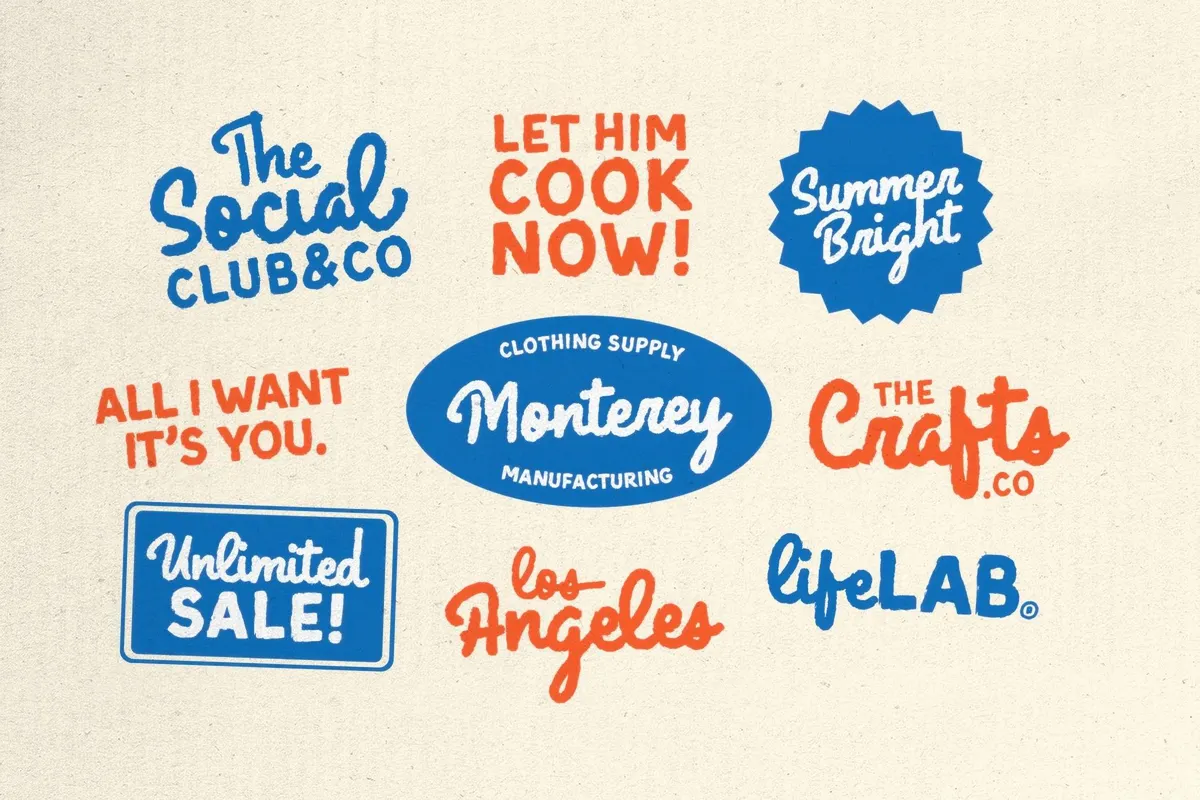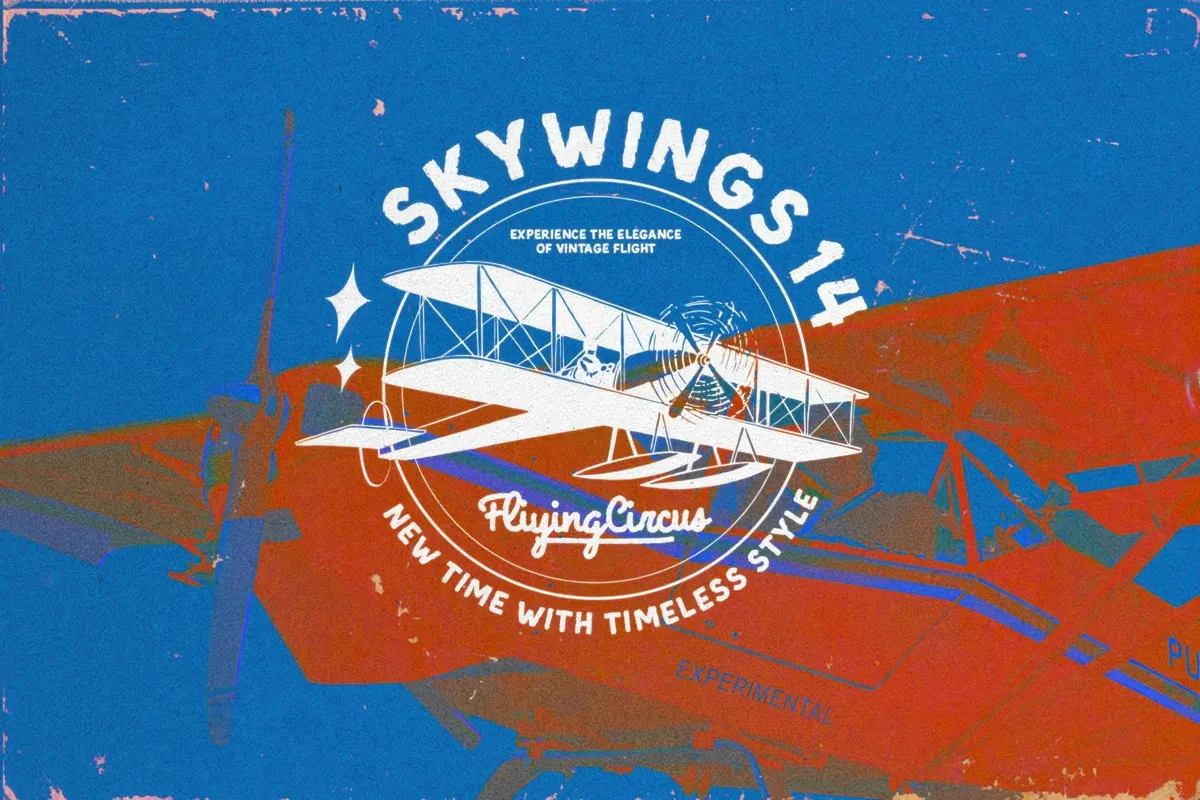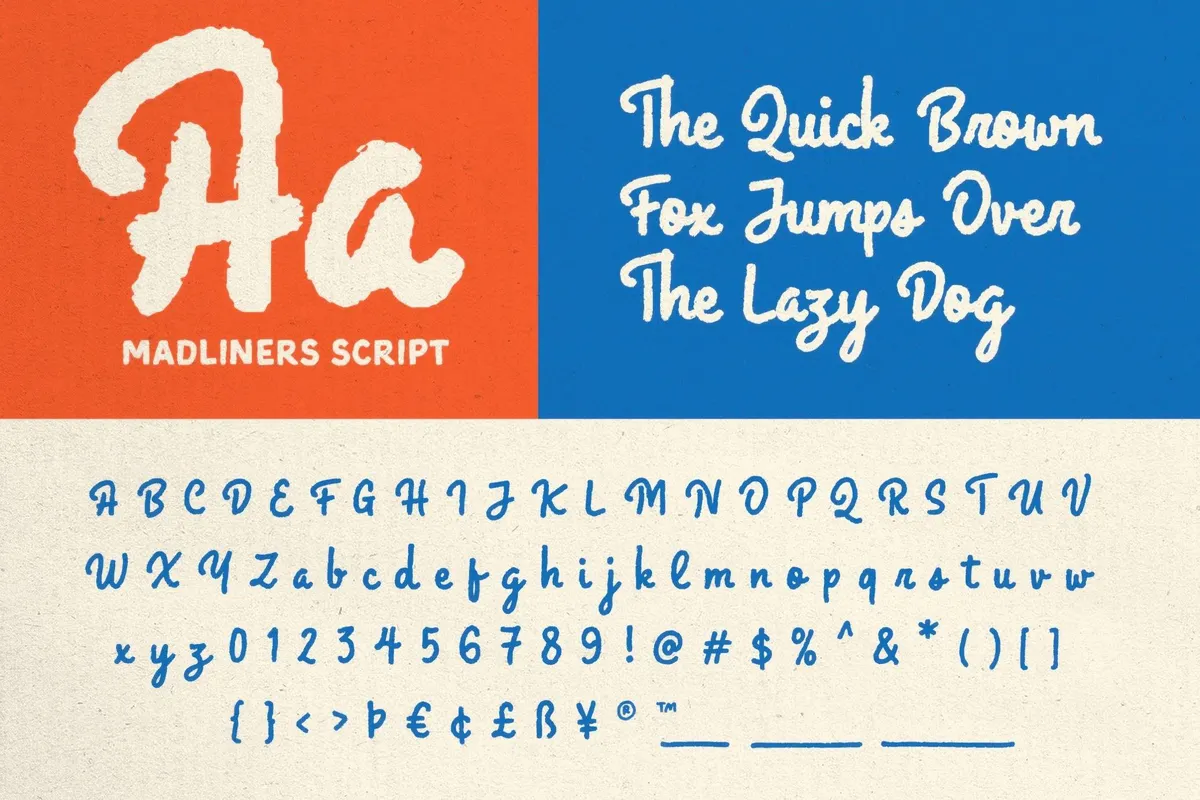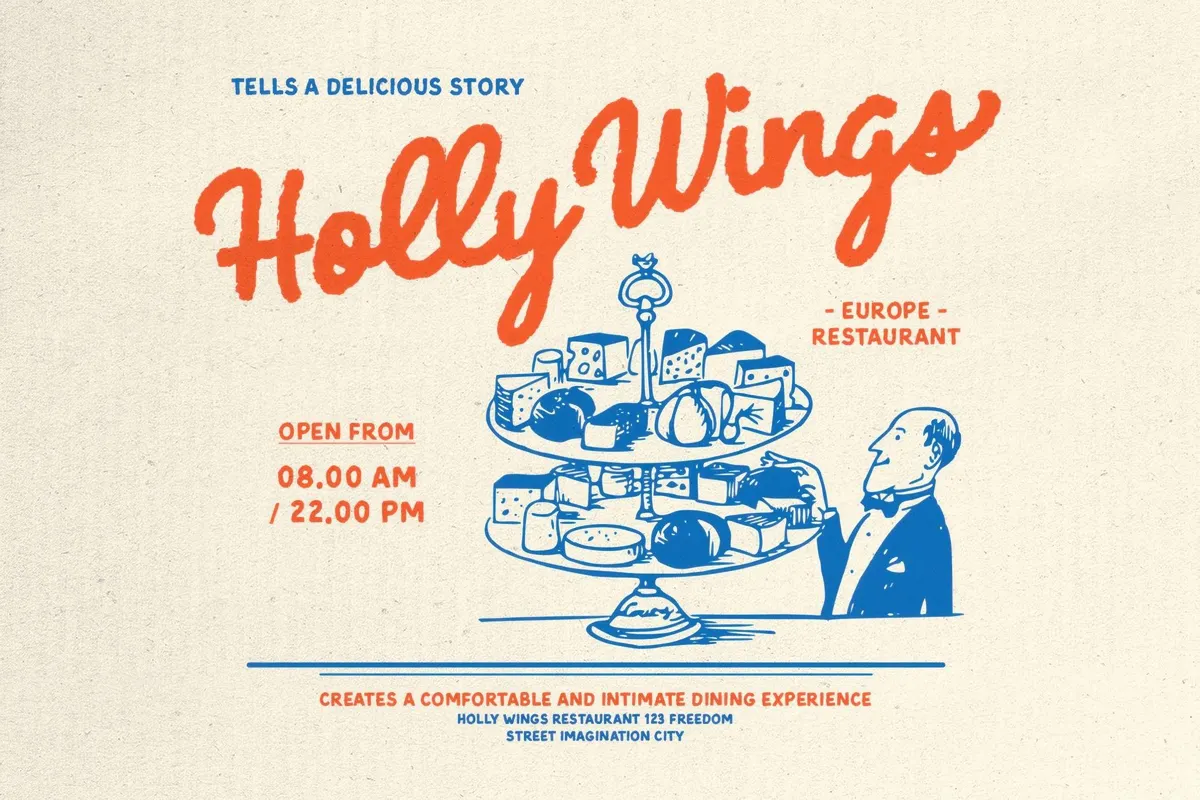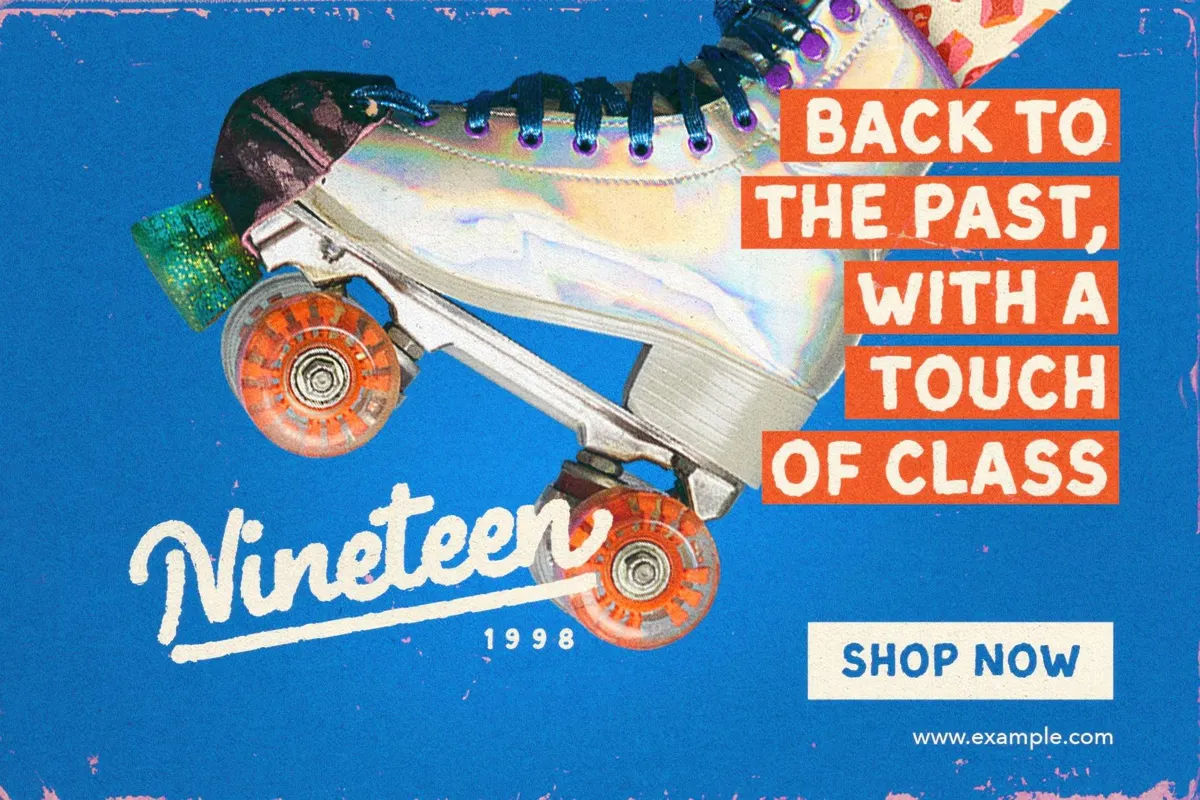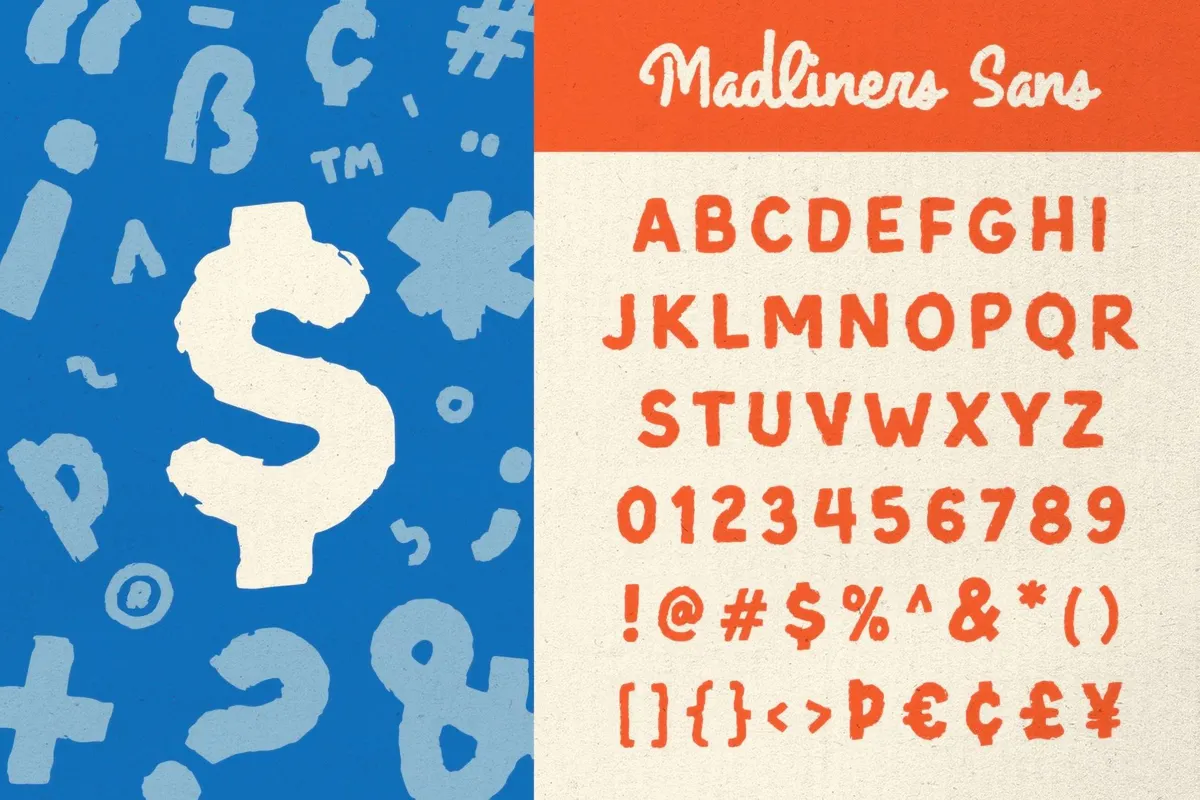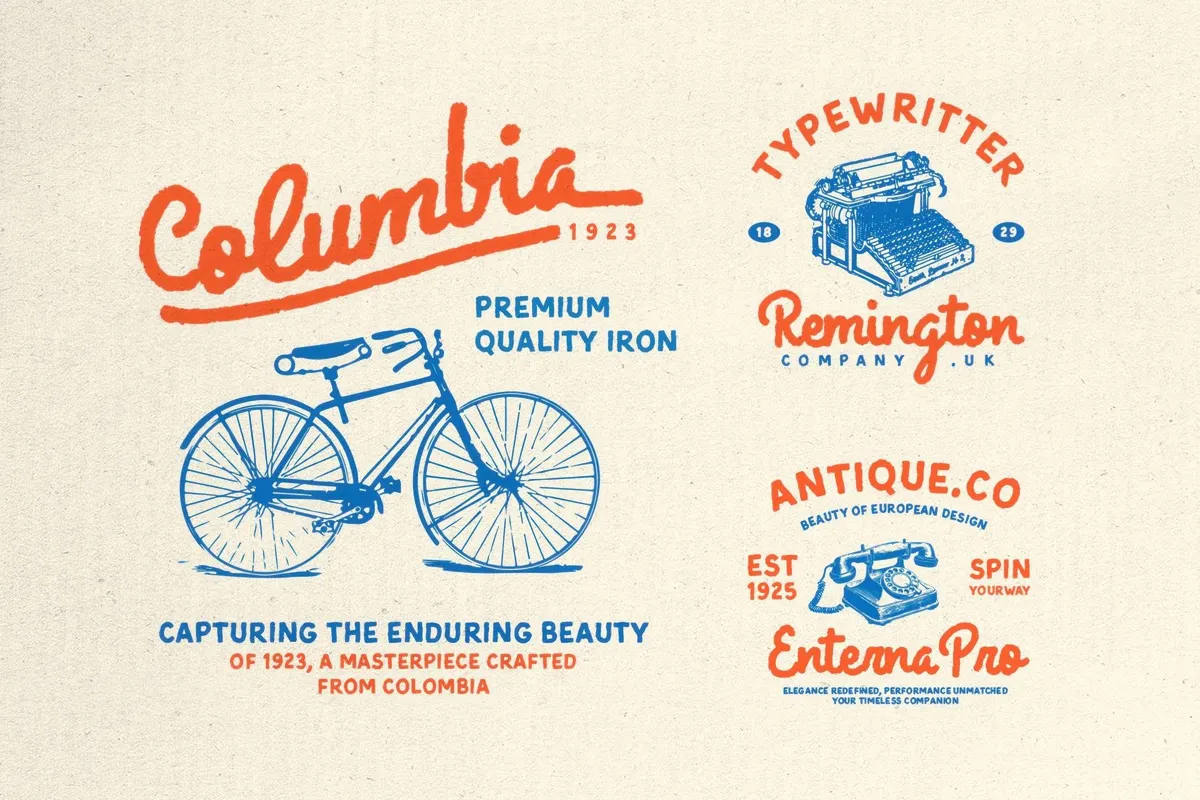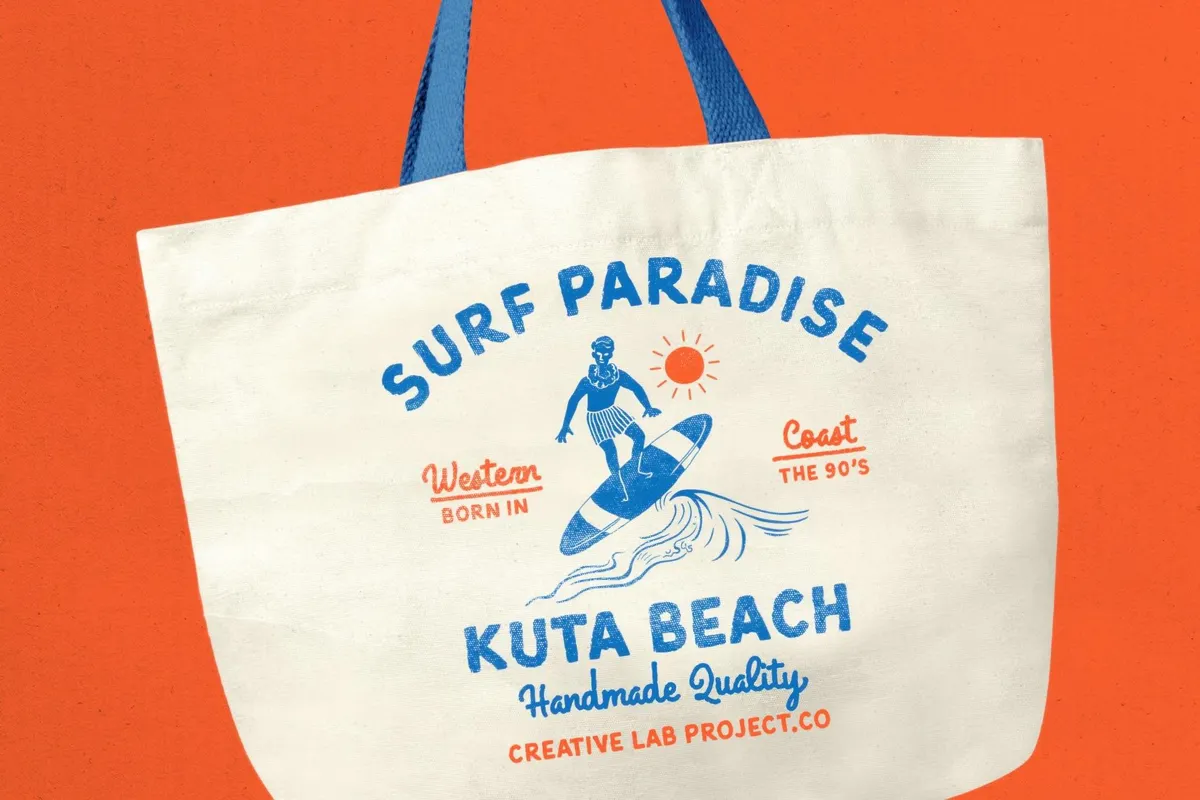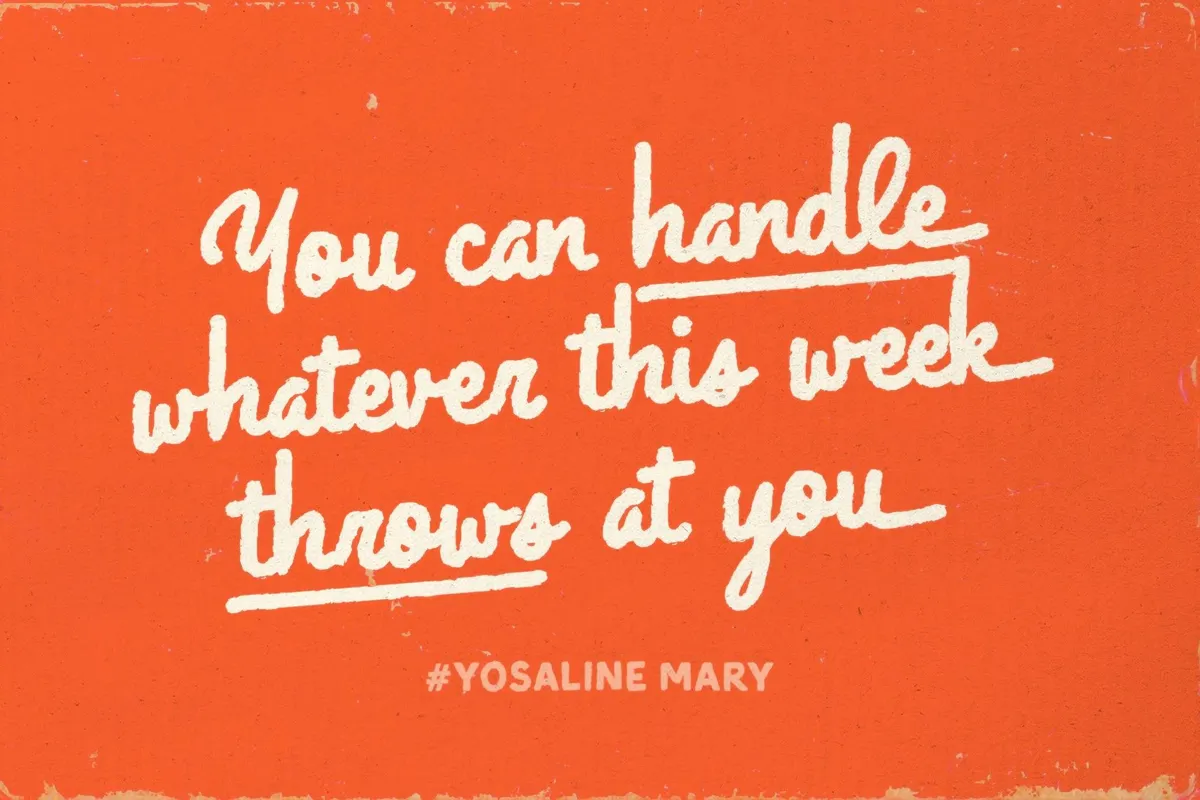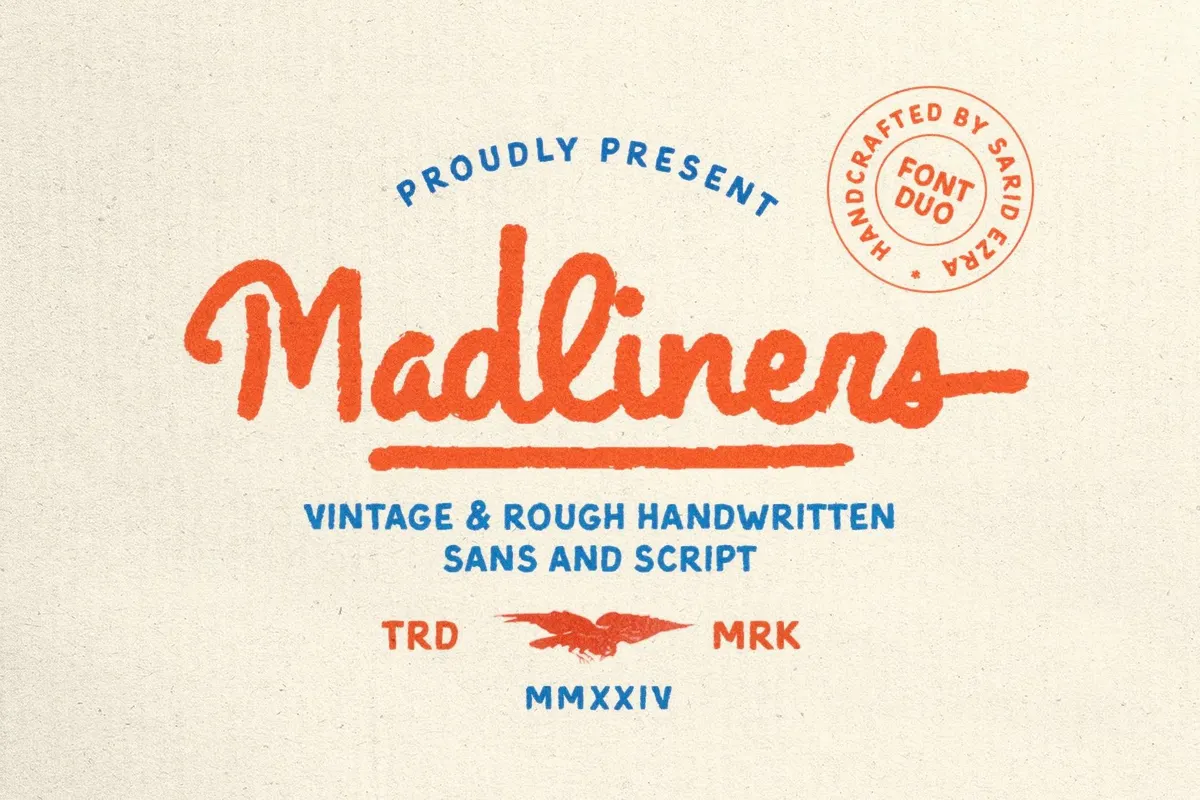
Madliners — Rough Font Duo
Sans
Madliners is a rugged, handcrafted font duo that is inspired by vintage lettering but with a raw, untamed twist. Some fonts try too hard to be clean, but this one is completely different. It embraces the grit and make it into art. The Sans comes in all caps with numerals, punctuation, and multilingual support, delivering a bold, structured look. The Script offers a naturally rough flow with uppercase and lowercase letters, numerals, punctuation, and multilingual characters. Together, they’re built for logos, badges, packaging, and any project that thrives on authenticity.